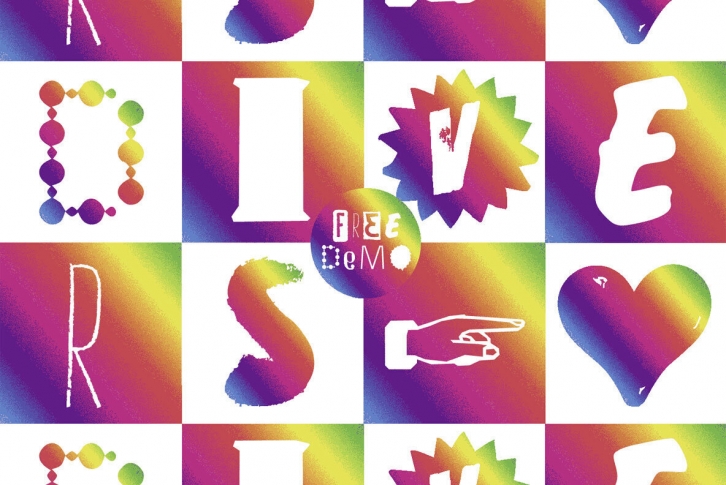
The typeface DIVERSiTY Font is designed from 2022 for the font foundry Typo Graphic Design by Manuel Viergutz as a political statement #diversity #
1 font-styles (Mix) with 245 glyphs incl. decorative extras like icons, arrows, dingbats, emojis, symbols, geometric shapes (type the word #LOVE for or #SMILE for as OpenType-Feature dlig) and stylistic alternates (3 stylistic sets).
For use in logos, magazines, posters, advertisement plus as webfont for decorative headlines. The font works best for display size.
â– Font Name: DIVERSiTY Font
â– Font CateÂgory: DisÂplay for headÂline size
â– Glyph Set: 245 glyphs incl. extras like icons (decorative extras like dingbats, emojis, symbols)
â– Type DesiÂgner: Manuel Viergutz